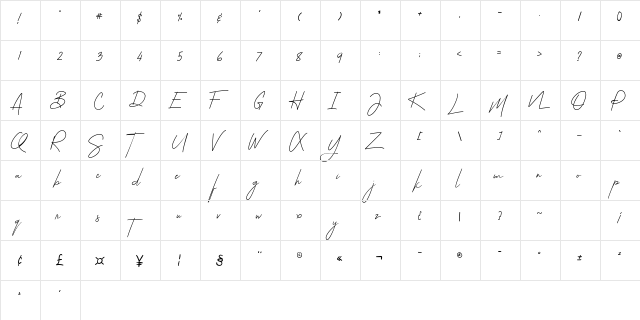
The Samfhang Regular
Design Context for The Samfhang Typeface
The Samfhang is a composed and adaptable typeface that performs quietly and consistently across a wide range of design contexts.